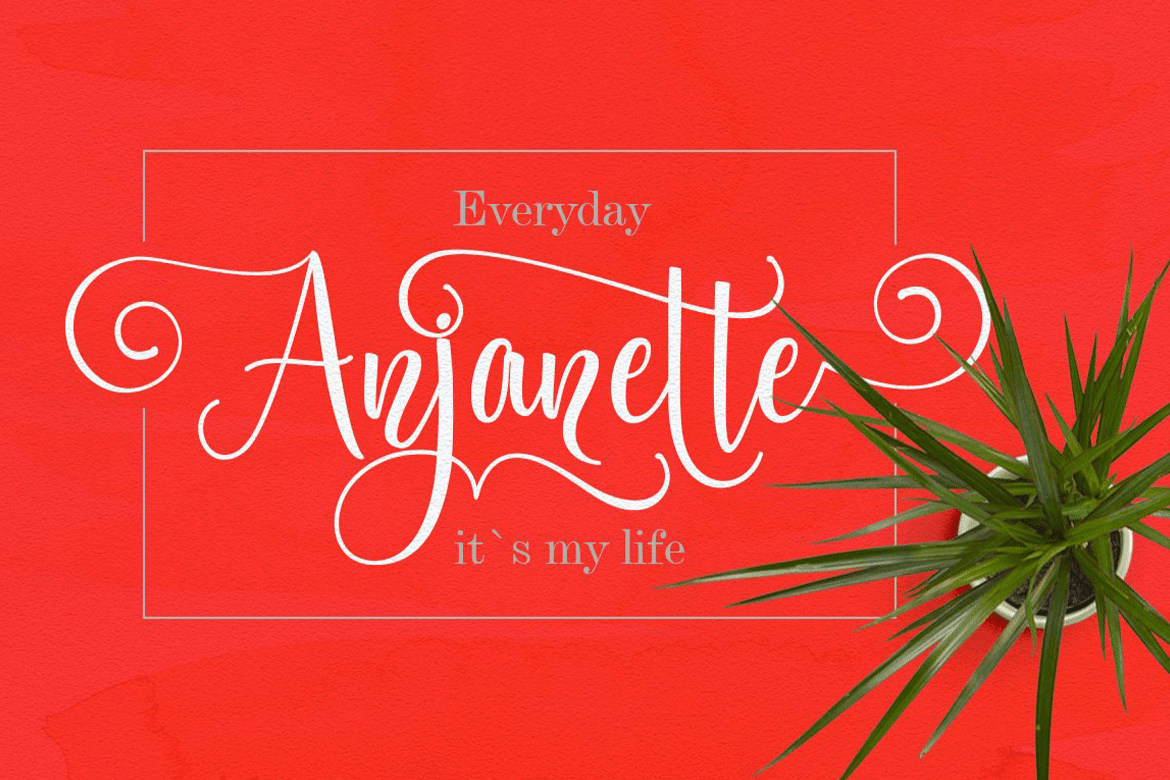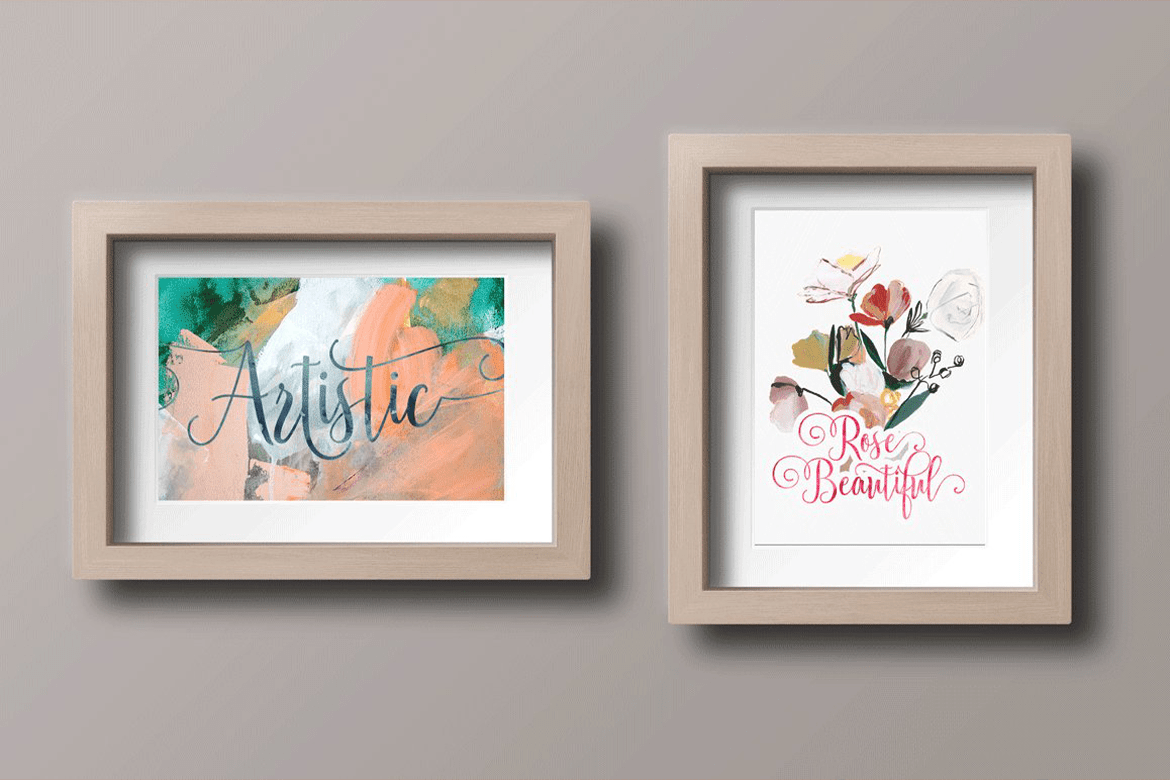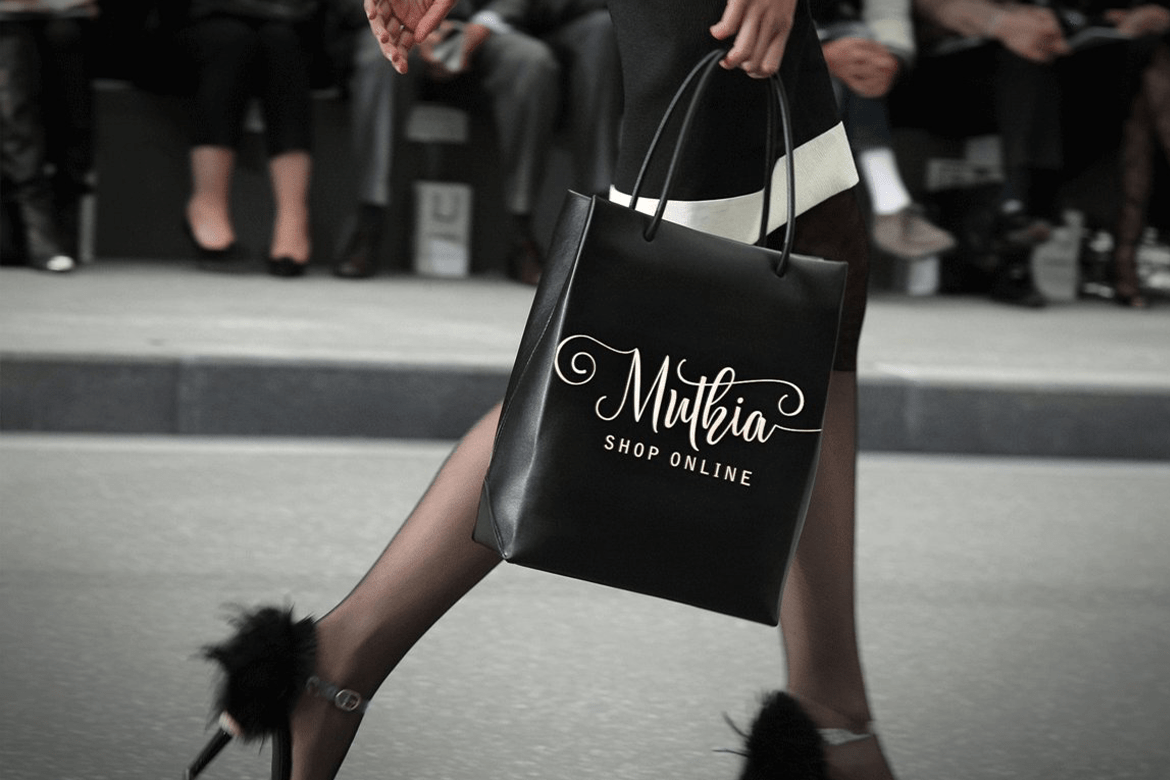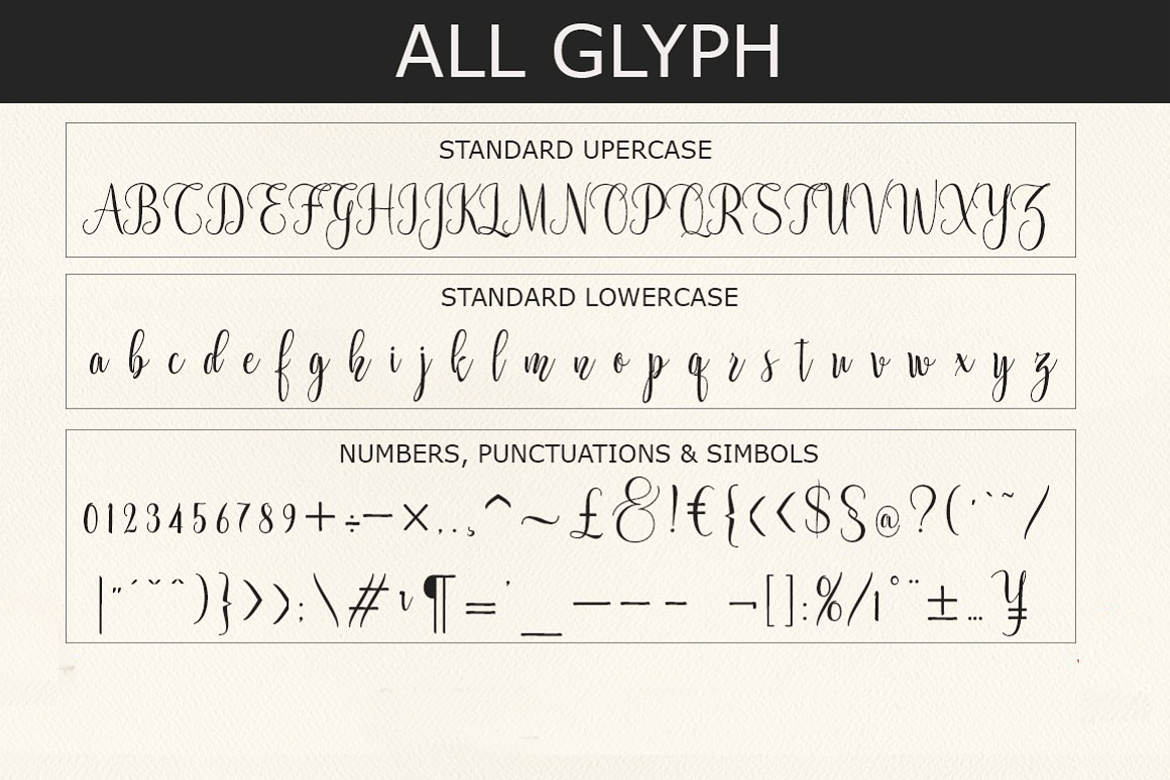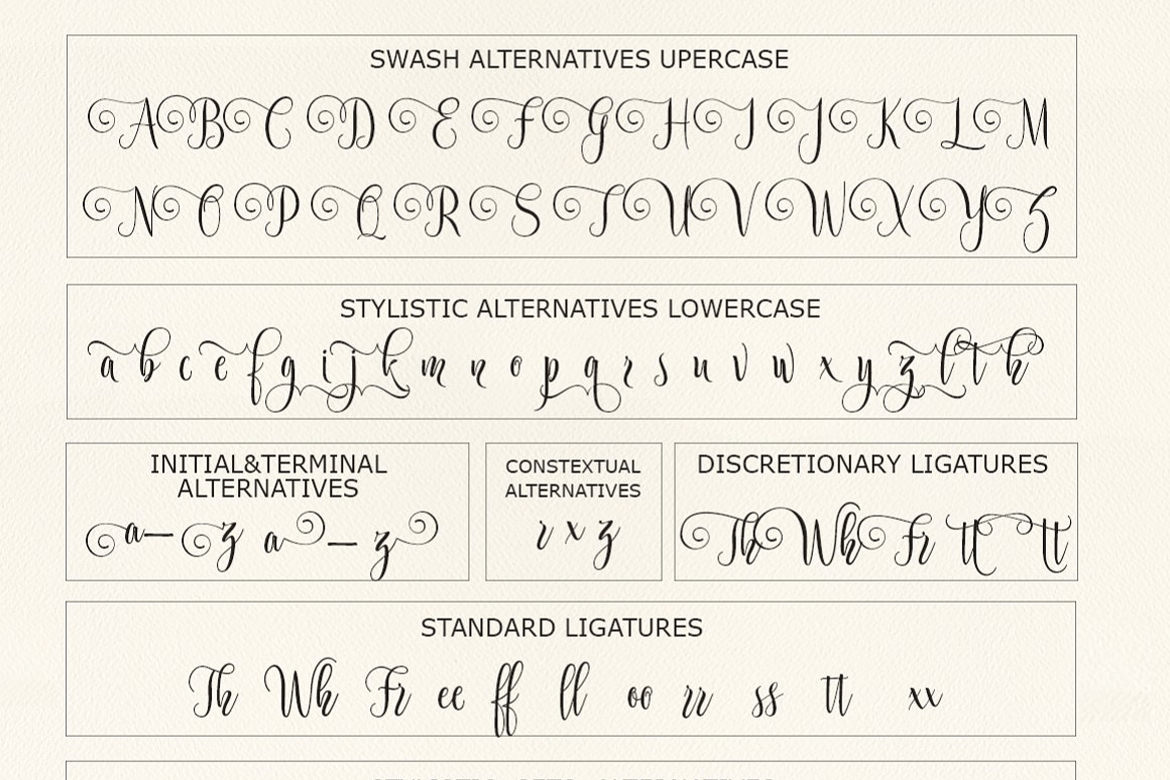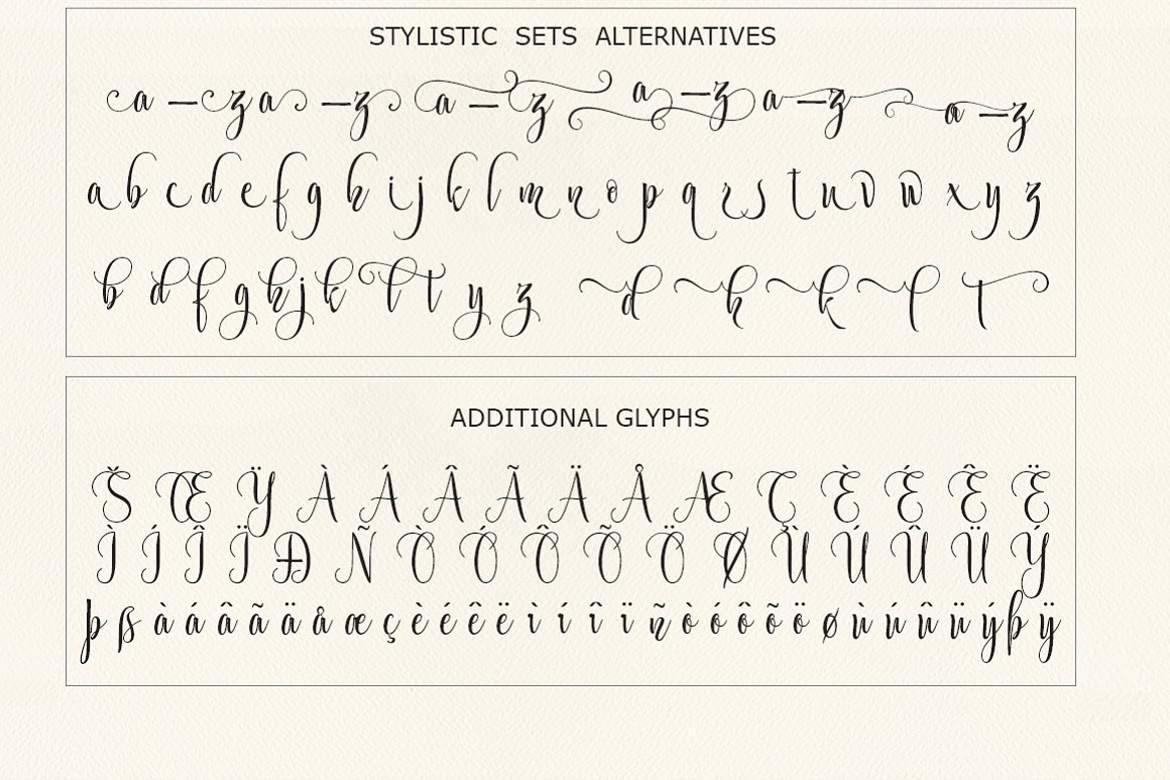
Valentina
Valentina is an elegant handwritten calligraphy font with flowing letterforms and a lively, dancing baseline. Inspired by traditional copperplate calligraphy and contemporary script styles, Valentina combines classic beauty with a modern, graceful character.
With 531 glyphs, Valentina offers a wide selection of alternate characters and OpenType features, including initial and terminal forms, stylistic alternates, swashes, and ligatures. These options make it easy to create distinctive lettering for both elegant and modern designs.
Font Features
Standard Ligatures
Discretionary Ligatures
Swash Alternates
Stylistic Alternates
Initial Alternates
Terminal Alternates
Stylistic Sets
PUA Unicode (Private Use Area) characters
Valentina is a versatile choice for logos, branding, wedding invitations, apparel, letterheads, signage, labels, headlines, posters, badges, packaging, and many other creative projects.